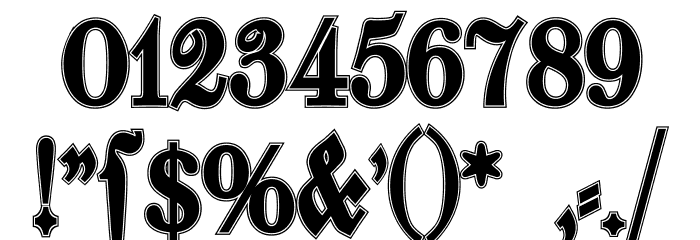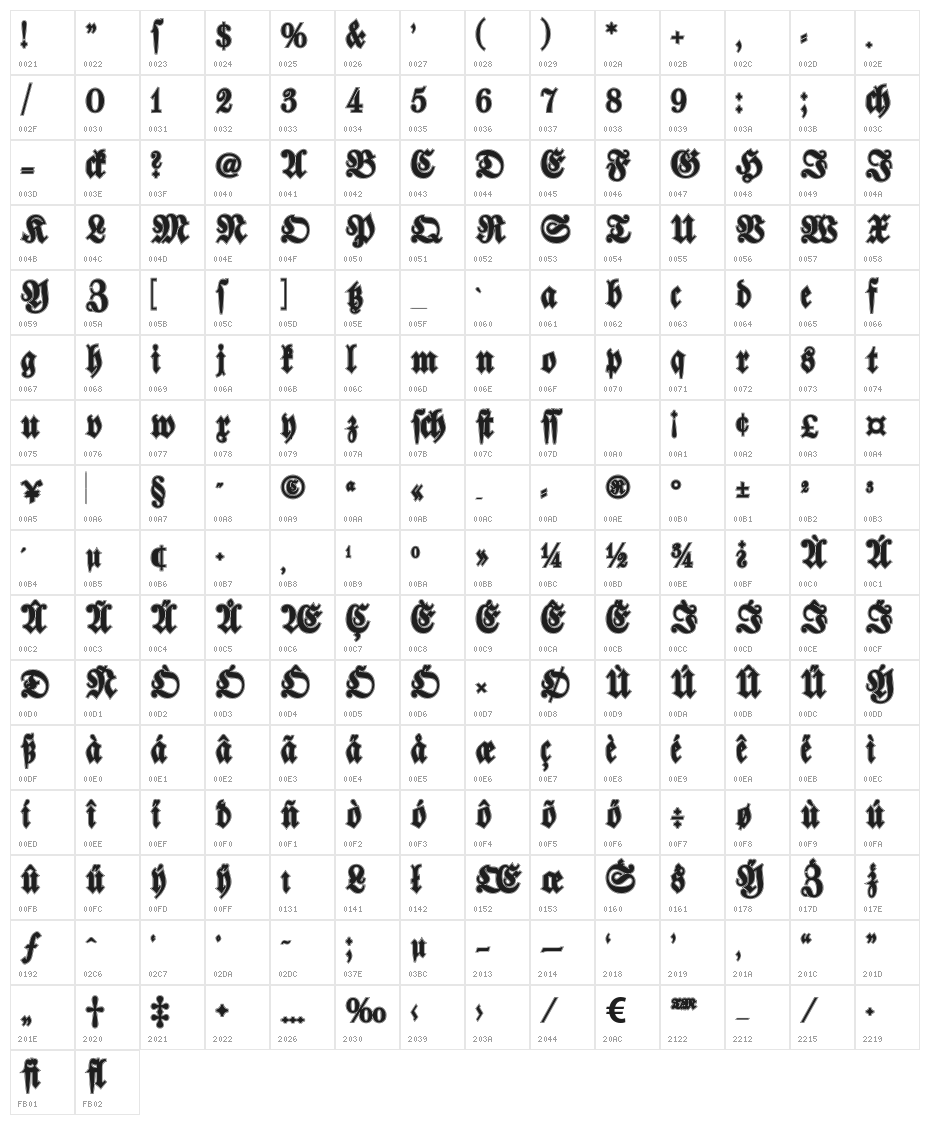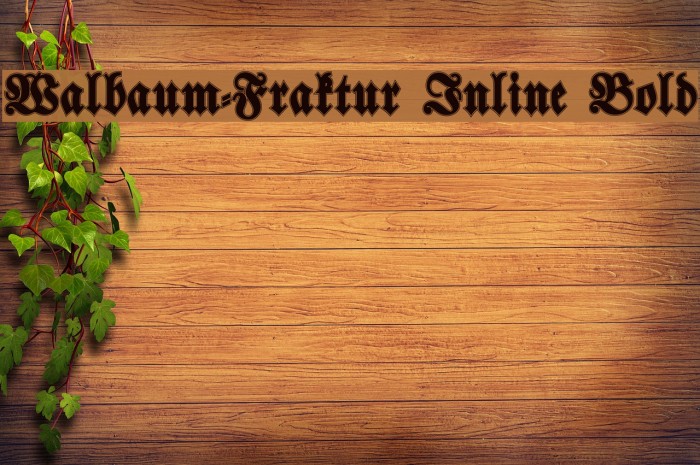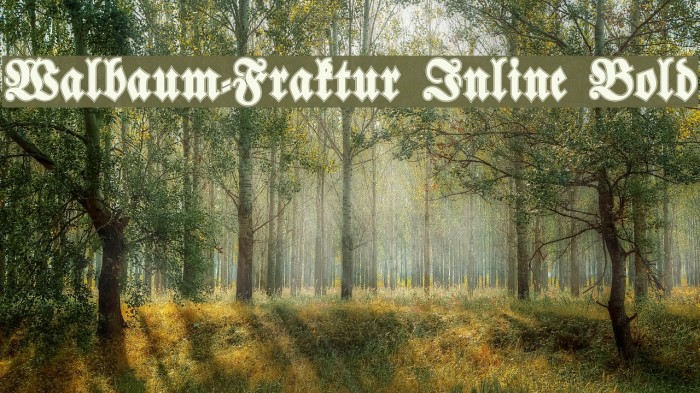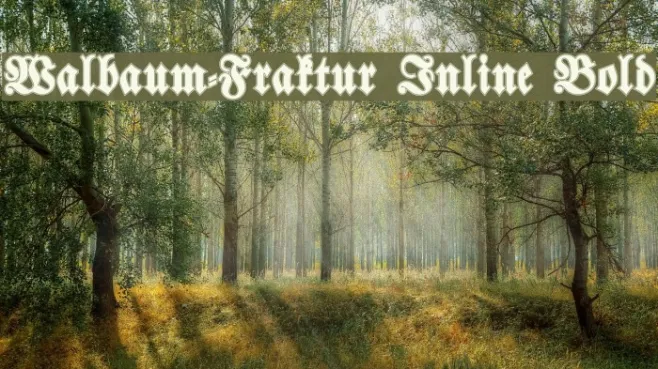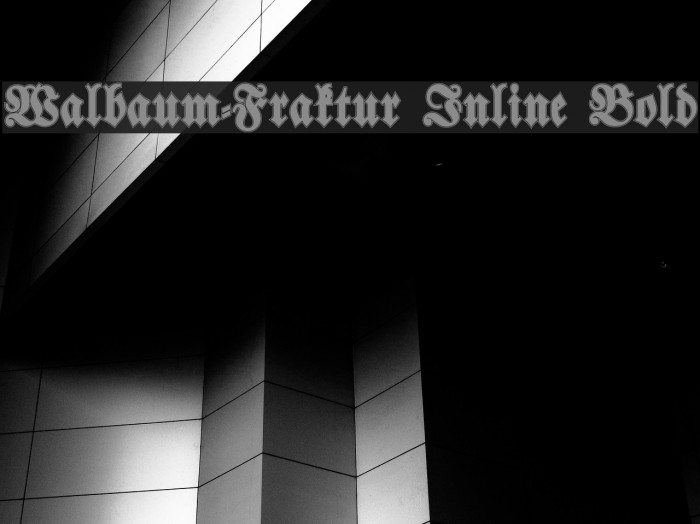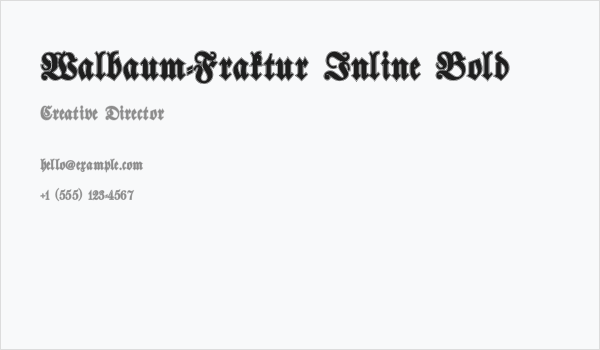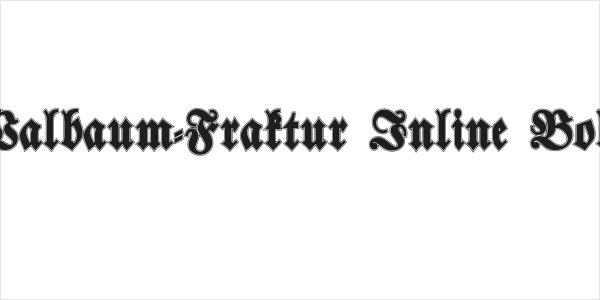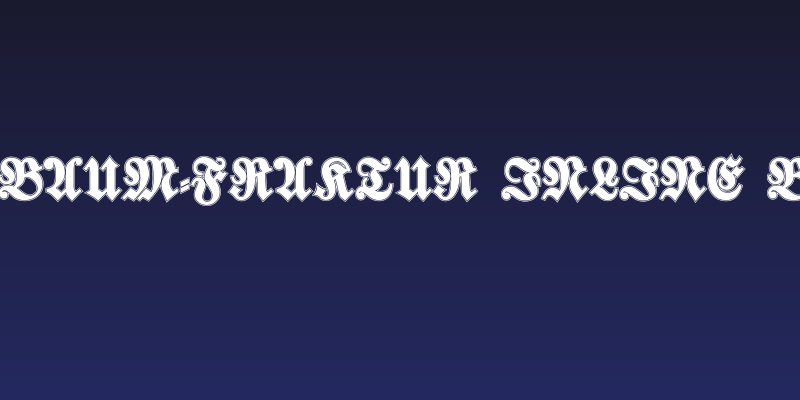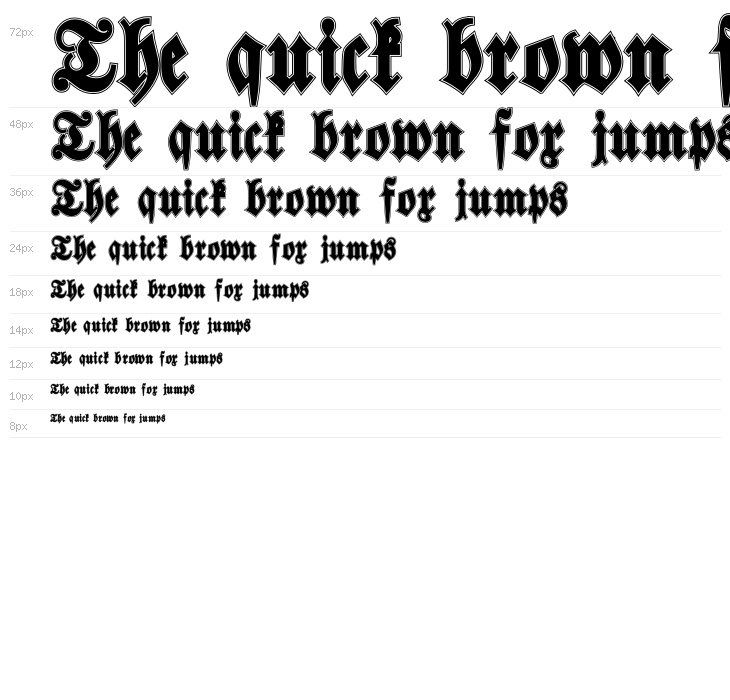
Walbaum-Fraktur Inline Bold Font
Walbaum-Fraktur Inline Bold Description
This font features a bold, intricate design with a classic blackletter style, characterized by its ornate and decorative elements. The inline detailing adds a unique touch, creating a sense of depth and sophistication. The uppercase letters are particularly elaborate, with sharp angles and flourishes that evoke a sense of historical elegance. The lowercase letters maintain the same intricate style, ensuring consistency throughout the typeface. The numerals and special characters are equally detailed, making this font suitable for projects that require a touch of vintage or gothic flair. The overall appearance is both striking and memorable, ideal for making a bold statement.
| Proposed Projects | Ideal for use in branding, posters, book covers, and any project that requires a historical or gothic aesthetic. |